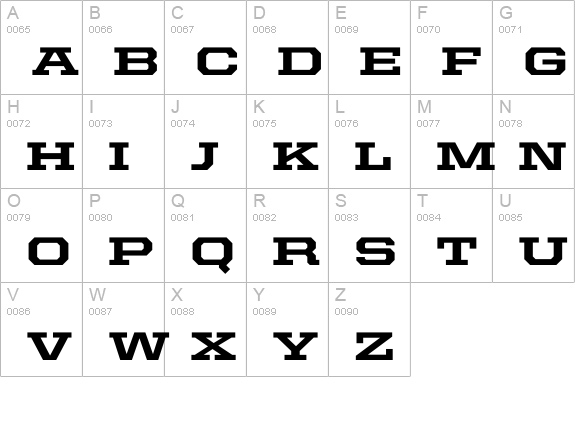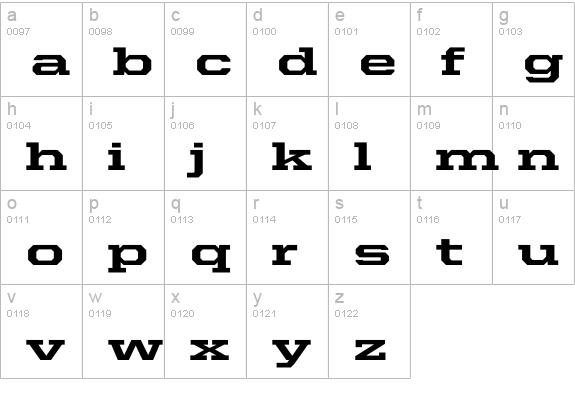
United Serif Ext Heavy Font Details
United Serif Ext Heavy is a heavy, high-impact variant in the United typeface family \xE2\x80\x94 well suited to high-impact headlines, posters, and display advertising.
United Serif Ext Heavy is a powerful and bold font that commands attention with its robust and imposing presence. With its thick strokes and sharp serifs, this typeface exudes strength and confidence, making it perfect for headlines, logos, and branding projects that require a strong and impactful visual statement. The United Serif Ext Heavy font is characterized by its extended proportions, allowing it to occupy more space and create a striking visual impact. This font is ideal for projects that require maximum visibility and legibility, such as large banners, billboards, and signage. Not only does United Serif Ext Heavy possess an impressive visual presence, but it also offers exceptional versatility. This font can be used in a wide range of design styles, from modern and minimalist to classic and elegant. Its timeless appeal ensures that it will remain relevant and impactful in various design contexts. One of the most remarkable aspects of United Serif Ext Heavy is that it is available for free download at FontsMarket.com. This means that designers and creatives can easily access this stunning font without any cost or hassle. Whether you are a professional designer or an aspiring artist, the availability of this font for free allows you to elevate your designs without breaking the bank. As you download United Serif Ext Heavy from FontsMarket.com, you can expect a seamless and hassle-free experience. The font is provided in multiple file formats, ensuring compatibility with various design software and applications. Additionally, the font is meticulously designed and optimized for both print and digital media, guaranteeing exceptional quality and clarity in every usage scenario. In summary, United Serif Ext Heavy is a visually commanding font that embodies strength, confidence, and versatility. With its bold strokes and extended proportions, this font is perfect for creating impactful headlines and branding materials. The fact that it is freely available for download at FontsMarket.com makes it an invaluable resource for designers seeking to elevate their projects without any additional cost. So go ahead and unleash the power of United Serif Ext Heavy in your designs today.